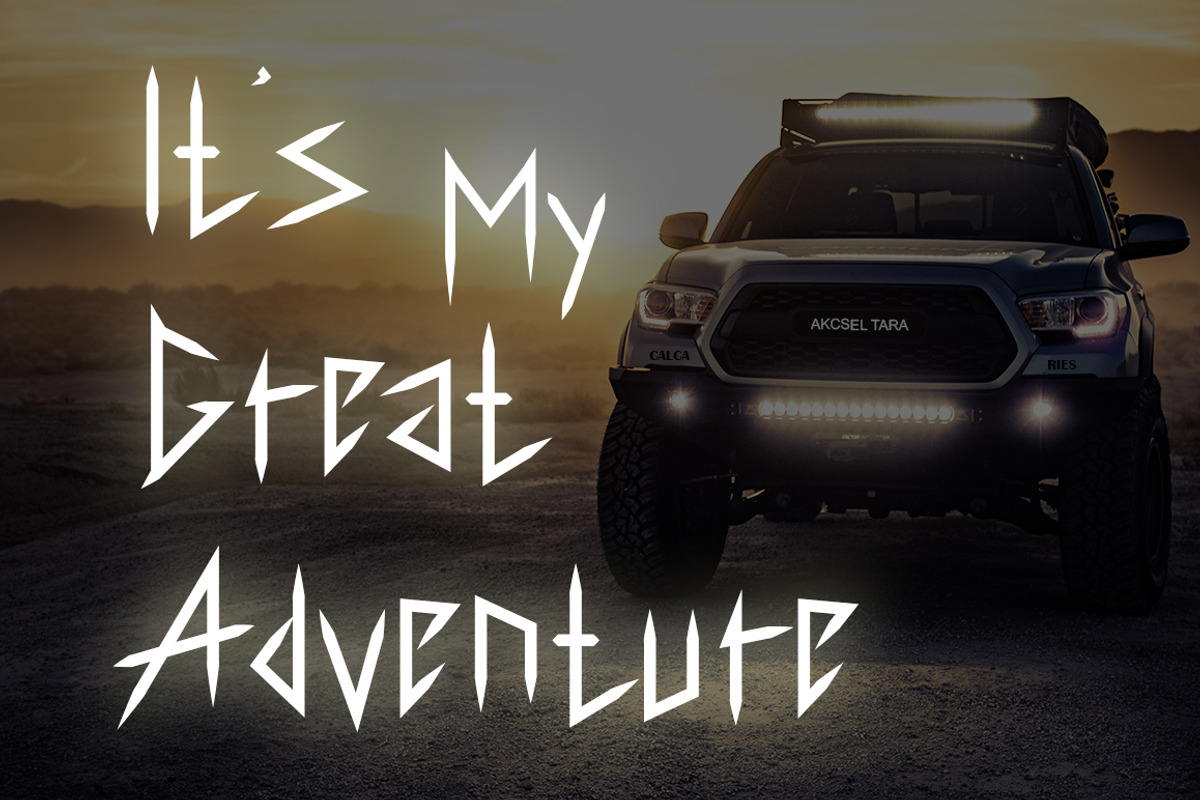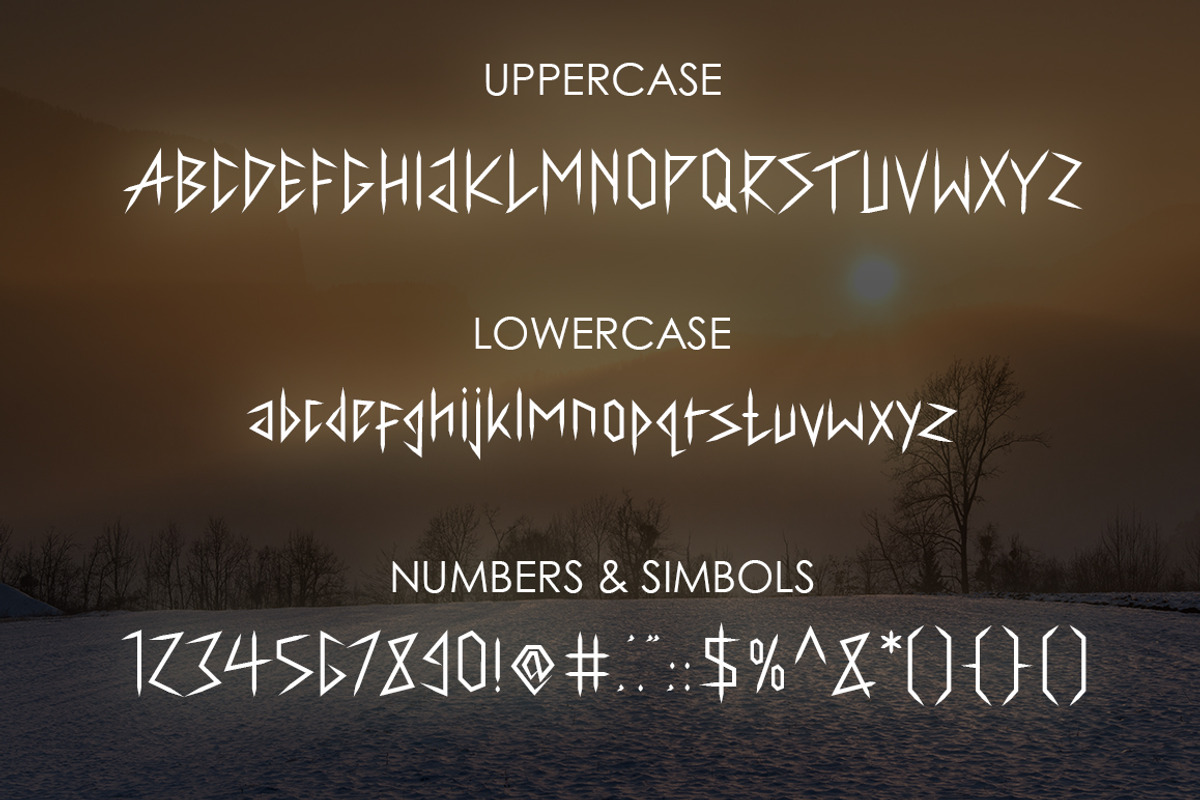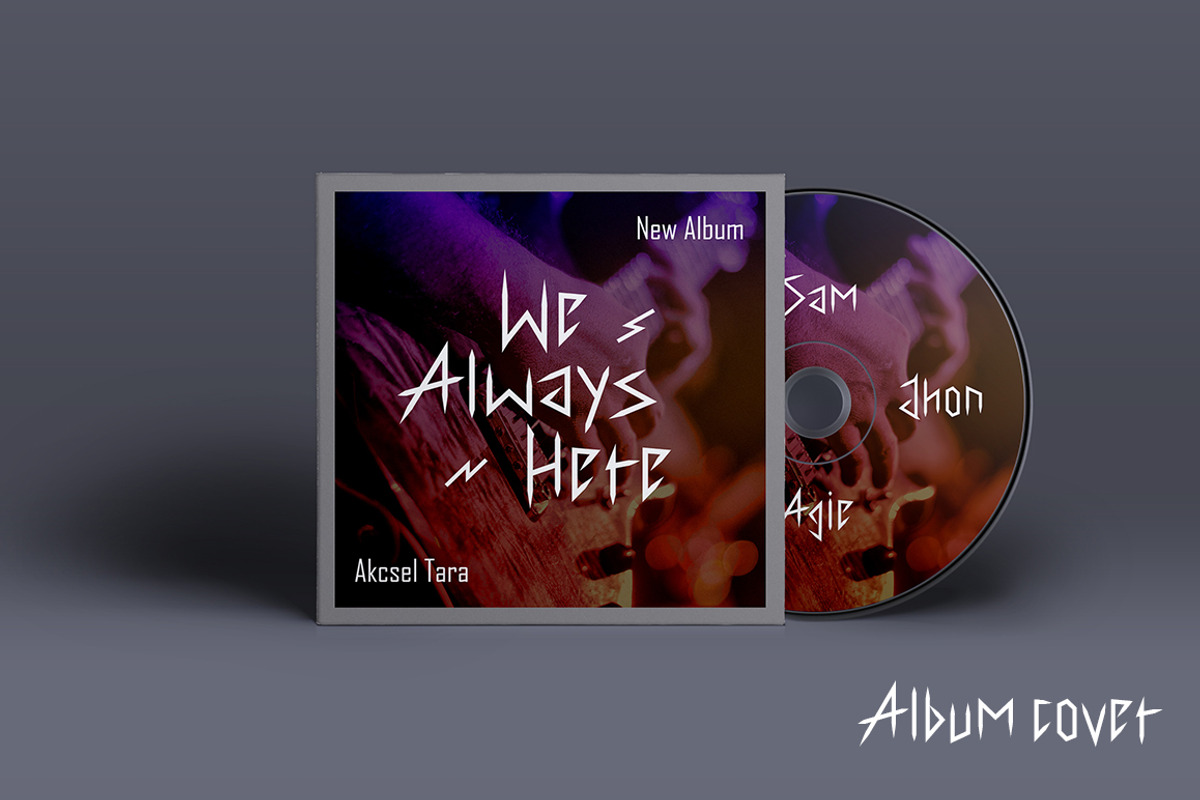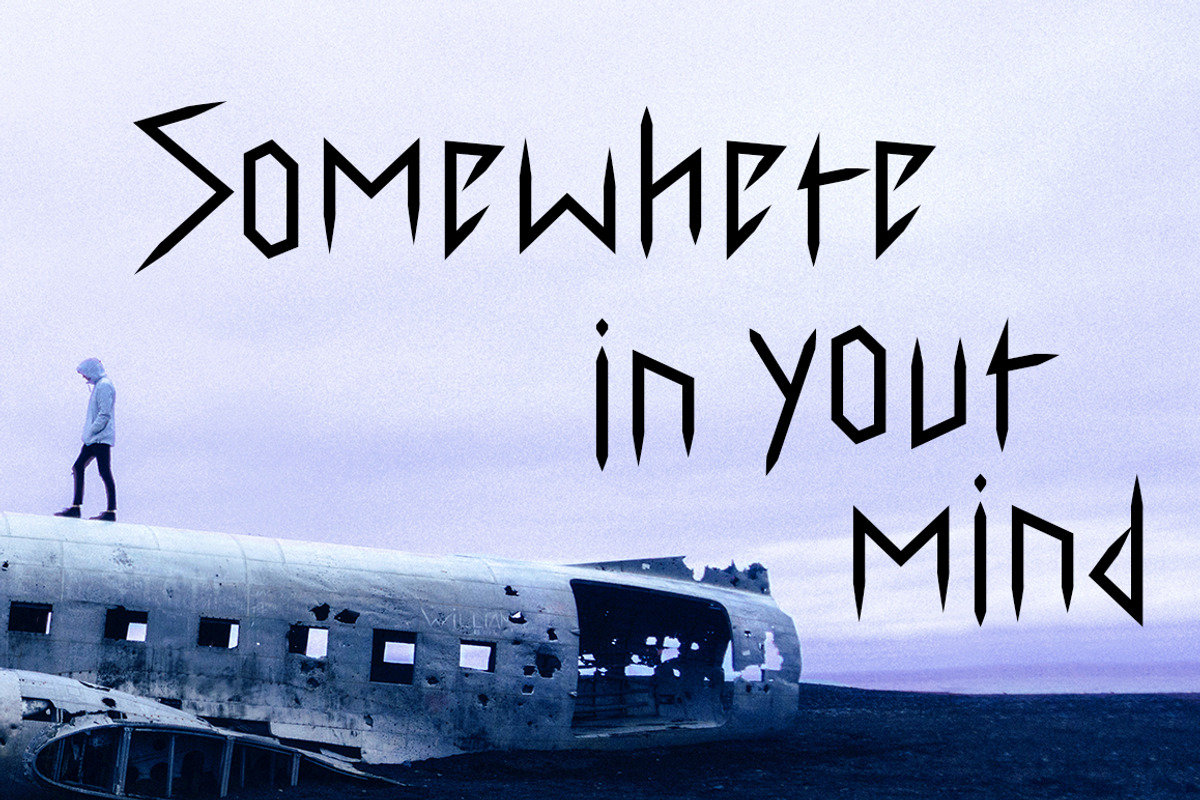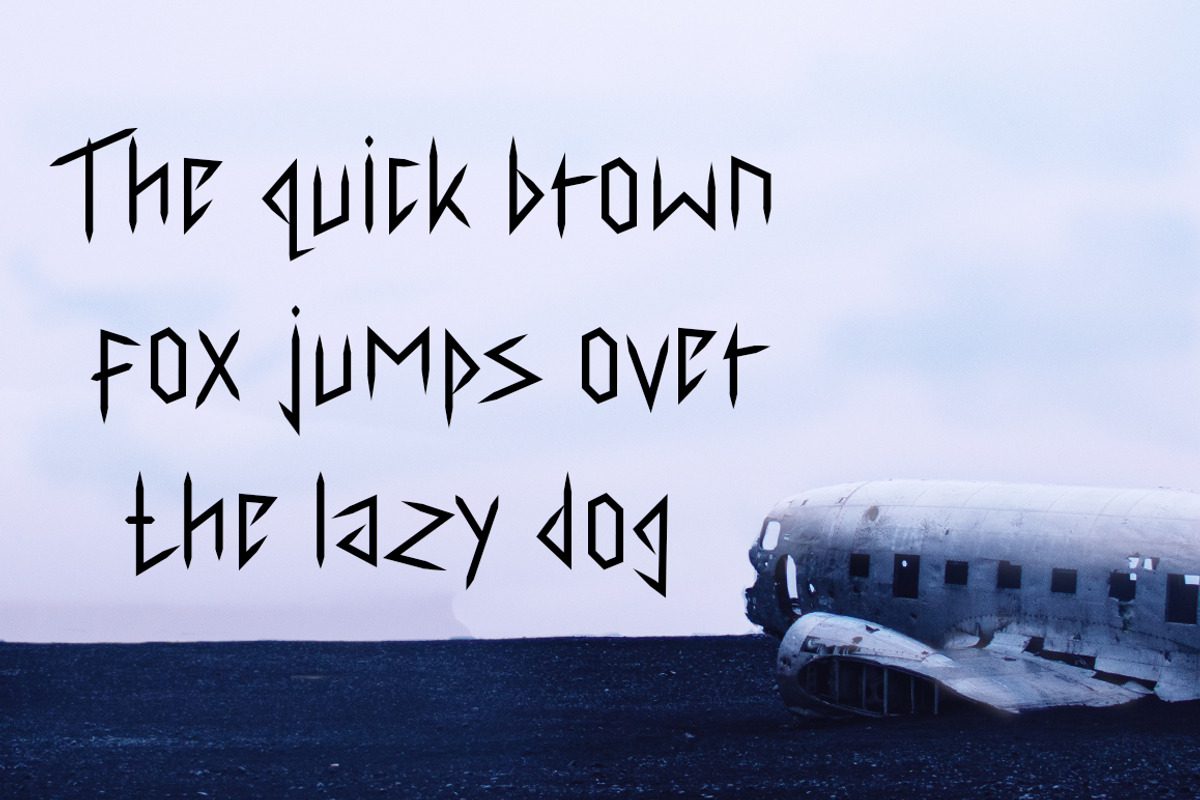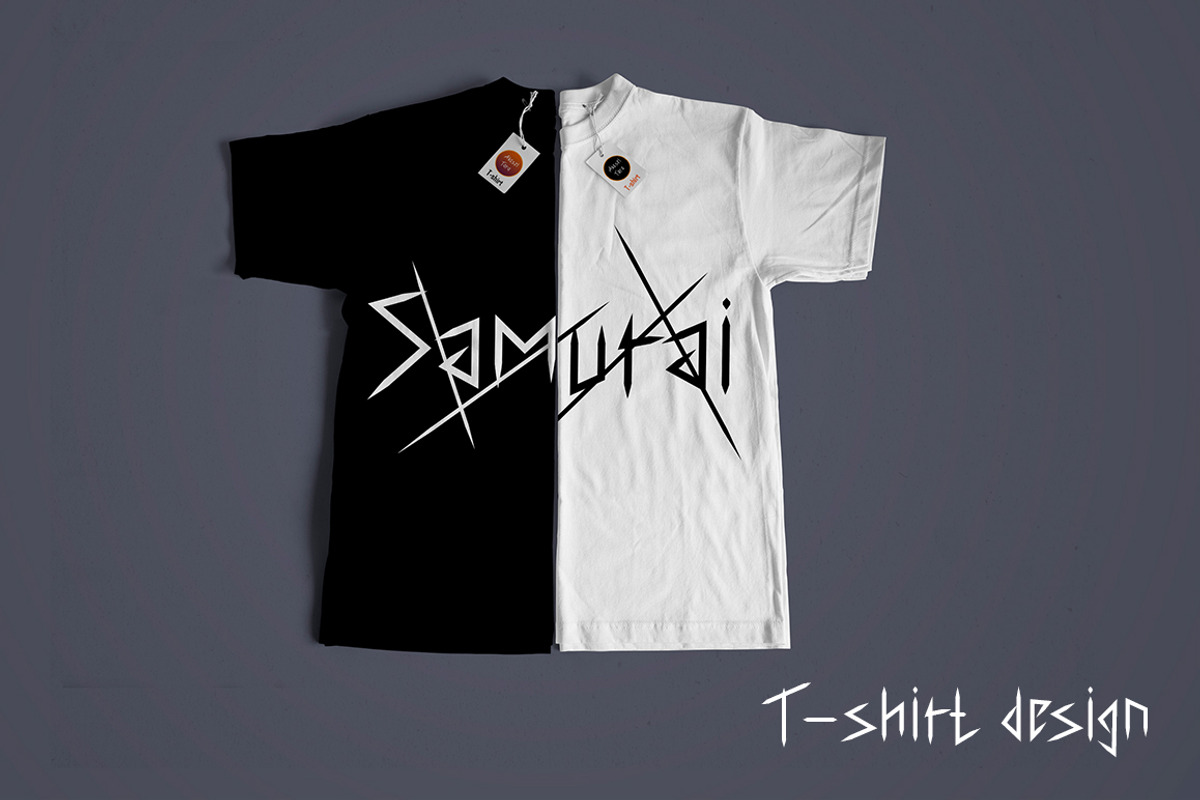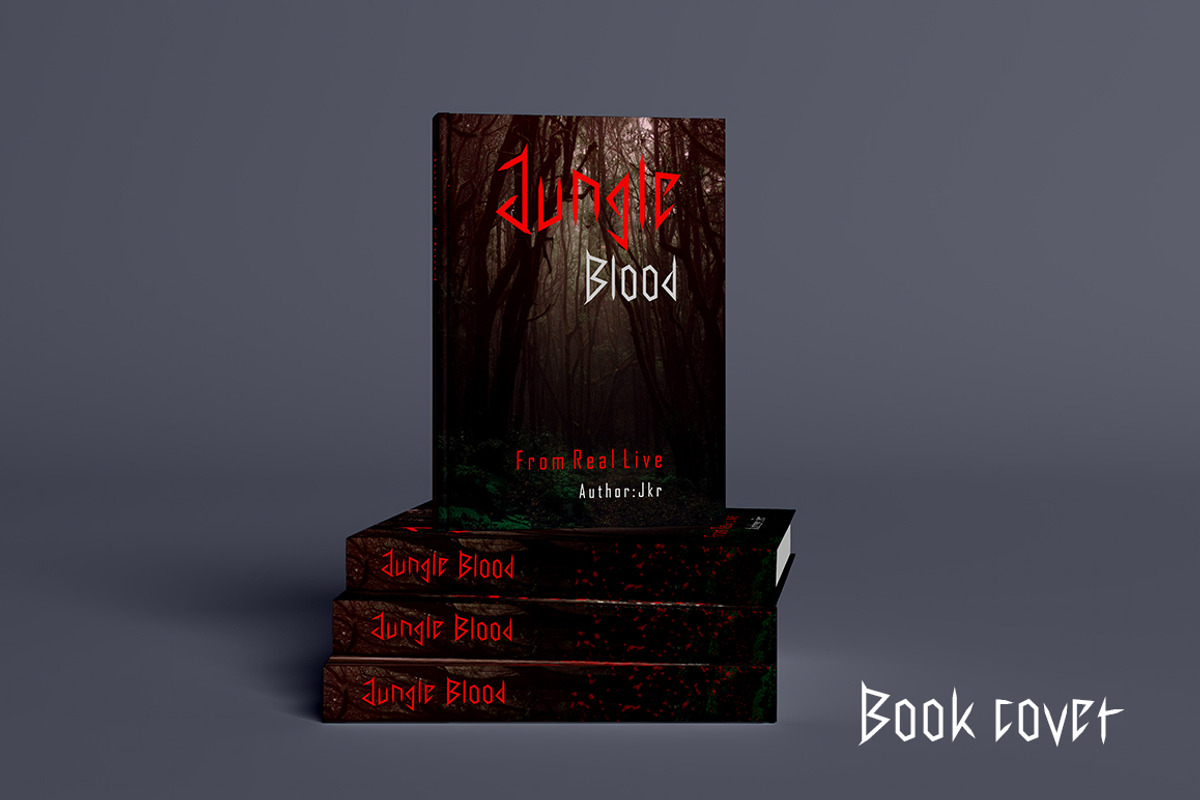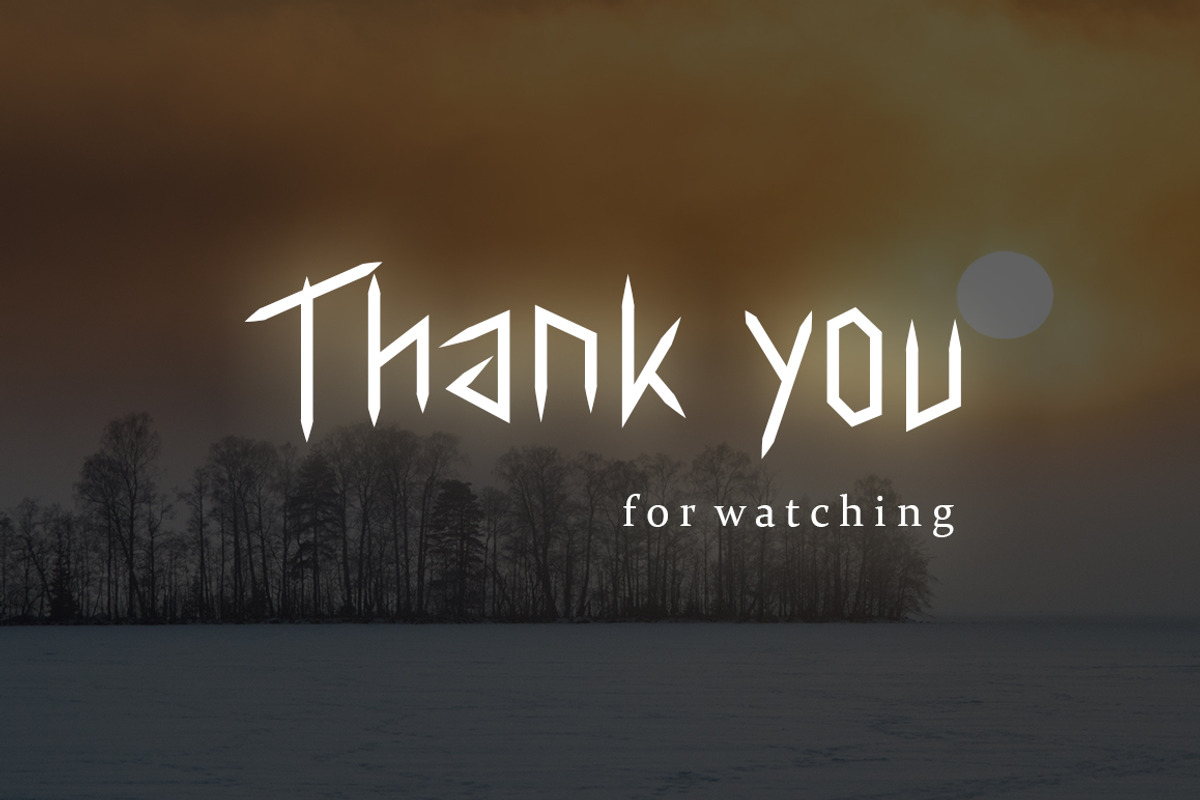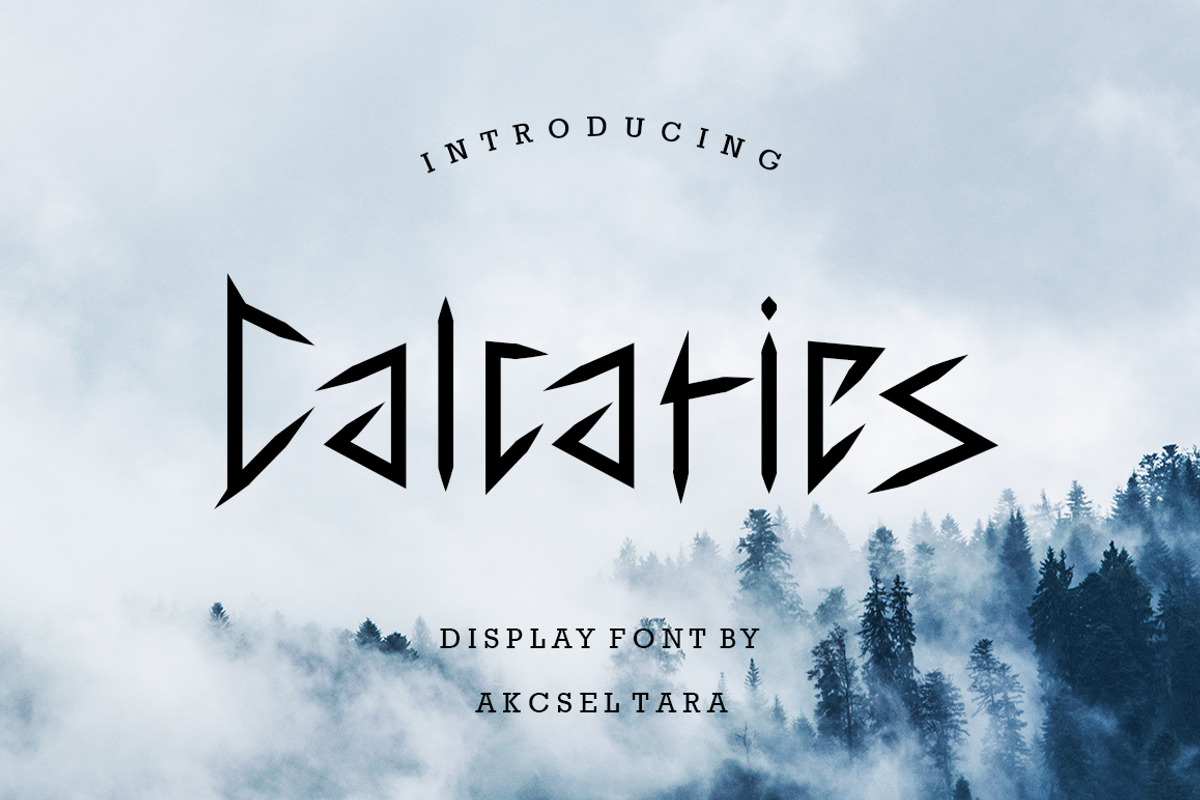
Calcaries - Display font
Calcaries is a display font that is lined without curves with sharp edges.
Calcaries is perfect for logos, name card, book titles, brand identity, t-shirt design, disk cover, packaging, any project, and much more.
Calcaries includes all upper and lower case standard character, punctuation, numerals and ligatures.